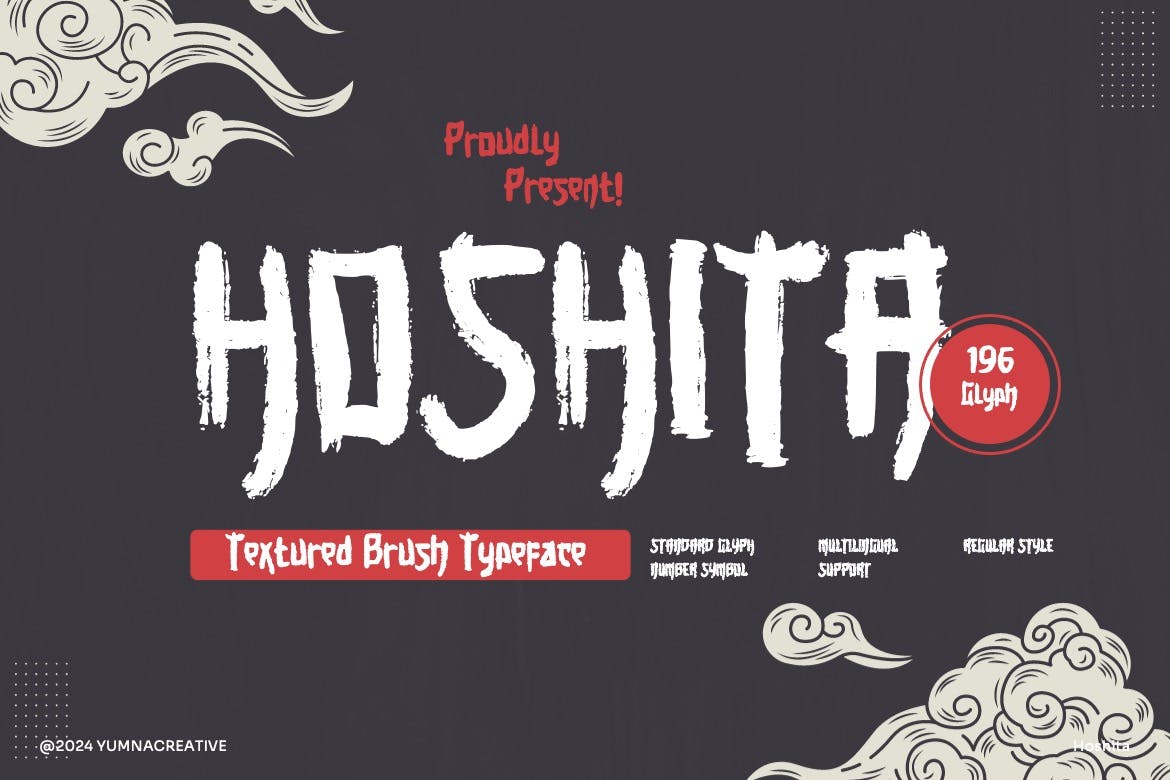
Hoshita - Textured Brush Font
Perfect for posters, apparel design, branding projects, packaging, album covers, social media graphics, and event invitations.
The Hoshita - Textured Brush Font excites designers with its hand-painted, bold brush strokes that bring raw energy and authentic artistic flair to any project.
The Hoshita - Textured Brush Font Free Download is the perfect choice for creatives who want to inject personality and dynamic movement into their designs. Inspired by authentic brush lettering techniques, this typeface features rough edges, organic textures, and an expressive flow that captures the spirit of handcrafted artistry. Whether you’re designing a music festival poster or a modern streetwear logo, Hoshita delivers an impactful and memorable visual punch.
One of the greatest strengths of the Hoshita - Textured Brush Font is its ability to blend raw imperfection with visual harmony. The textured strokes make it ideal for projects that require a sense of authenticity and creativity. Its bold characters stand out in both digital and print applications, ensuring your message grabs attention instantly.
In branding, this font is a game-changer for companies looking to express individuality and boldness. Paired with vibrant colors and striking imagery, it can create a powerful brand presence that’s hard to forget. For product packaging, especially in lifestyle, fashion, and artisanal goods, Hoshita adds a handmade touch that appeals to authenticity-driven audiences.
Social media creators will love the energy this font brings to promotional posts, quotes, and digital ads. Its textured style works exceptionally well with photography, grunge backgrounds, and layered design elements, making it a versatile addition to any creative toolkit.